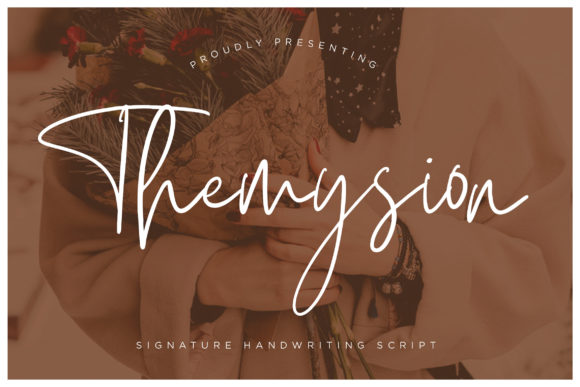
Introducing Themysion Font, a truly remarkable script font designed by CreatypeStudio. With its classy and elegant style, this font is bound to captivate your senses and elevate your crafting projects to new heights!
As you delve into the world of Themysion Font, you'll be mesmerized by its exquisite curves and artistic flair. Each stroke is meticulously crafted to exude a sense of sophistication and charm, making it ideal for creating stunning designs that leave a lasting impression.
Whether you're a professional designer or a passionate DIY enthusiast, Themysion Font is your ultimate tool for adding a touch of elegance to your projects. From wedding invitations to branding materials, this font will effortlessly elevate your creations and make them stand out from the crowd.
What sets Themysion Font apart is its versatility. It seamlessly adapts to various design themes and contexts, making it suitable for both formal and informal projects. Whether you're aiming for a vintage-inspired look or a modern and sleek design, this font effortlessly accommodates your creative vision.
But Themysion Font isn't just about aesthetics; it's also designed to make your life easier. With a wide range of stylish ligatures and alternate characters, you can effortlessly customize and personalize your text, giving it a unique and one-of-a-kind touch.